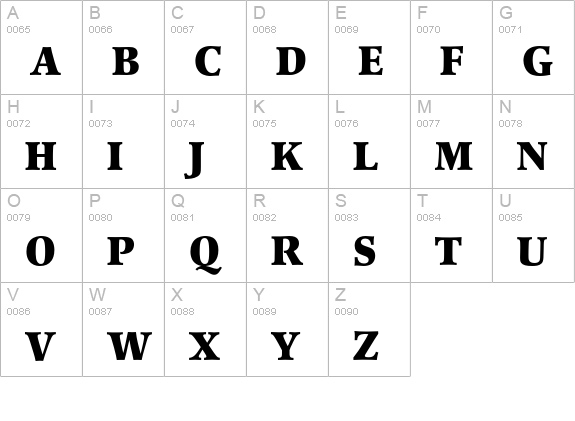
Poppl-Pontifex BQ Bold is a strong, high-contrast variant in the Poppl typeface family \xE2\x80\x94 well suited to headlines, attention-grabbing titles, and strong calls-to-action.
Poppl-Pontifex BQ Bold is a striking and elegant font that demands attention with its bold and powerful presence. Designed with precision and style, this font is perfect for making a bold statement in any design project. Its strong and impactful letterforms are ideal for headlines, titles, and banners, adding a touch of sophistication and modernity. What sets Poppl-Pontifex BQ Bold apart is its versatility and readability, making it suitable for a wide range of applications including branding, advertising, packaging, and more. The clean lines and distinctive character shapes make this font a standout choice for designers looking to make a lasting impression. And the best part? Poppl-Pontifex BQ Bold is available for free download at FontsMarket.com, making it accessible to all designers and creatives looking to elevate their projects with a touch of bold elegance. Don't miss out on this opportunity to add a touch of sophistication to your designs with Poppl-Pontifex BQ Bold. Download it today and let your creativity shine!